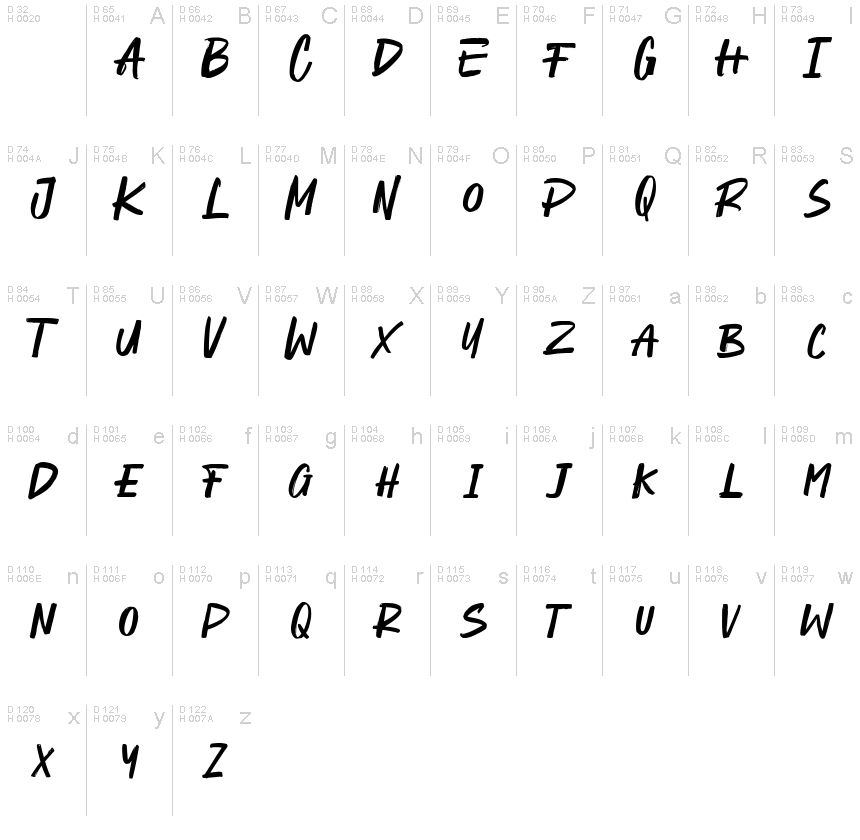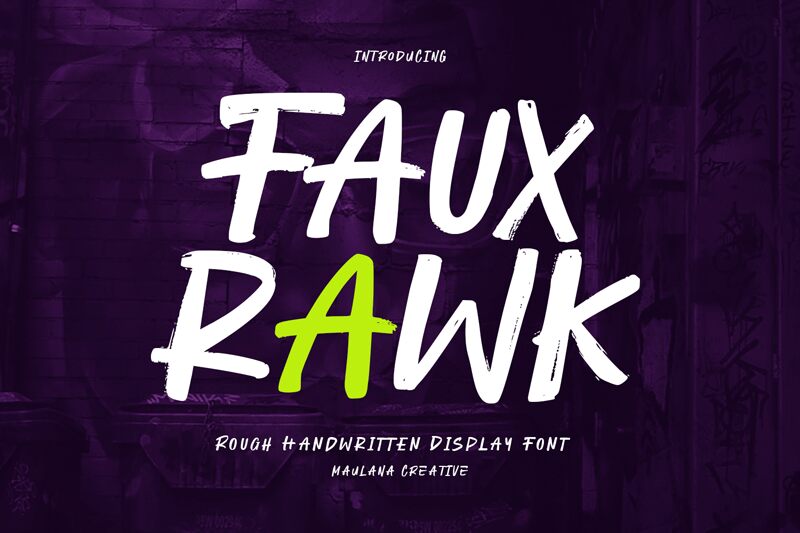
Fauxrawk Free Regular
Fauxrawk, a captivating brush font crafted by the talented Maulana Creative, exudes a rugged yet refined essence. Its bold, expressive strokes and organic, hand-drawn appearance lend an unmistakable sense of authenticity and character to any design. The striking contrast between thick and thin lines, coupled with the font's dynamic, almost kinetic energy, creates a captivating visual impact that immediately draws the viewer's attention.
Fauxrawk's versatility shines through its ability to effortlessly transition between bold headings, impactful call-to-actions, and attention-grabbing display text. Its unique character and versatility make it an excellent choice for a wide range of design applications, from branding and packaging to editorial layouts and social media content, allowing designers to infuse their work with a distinctive, artisanal flair.